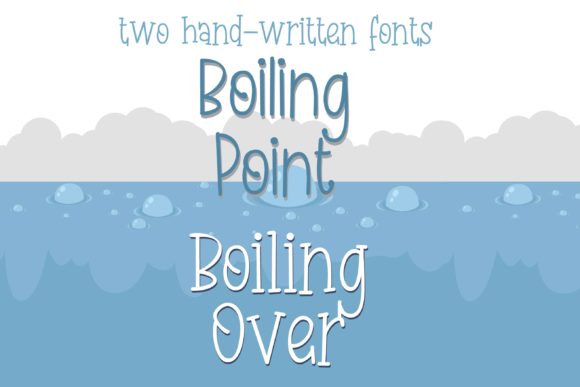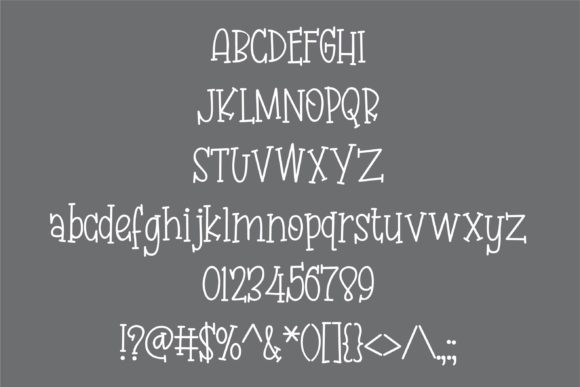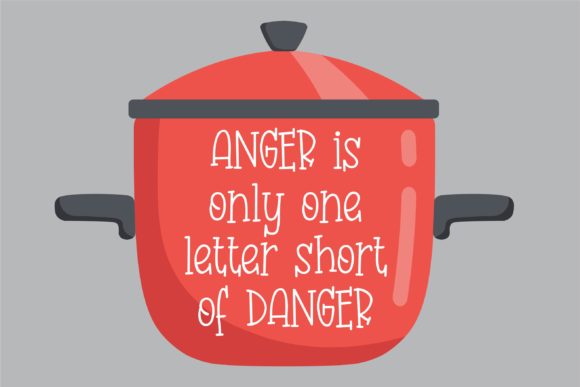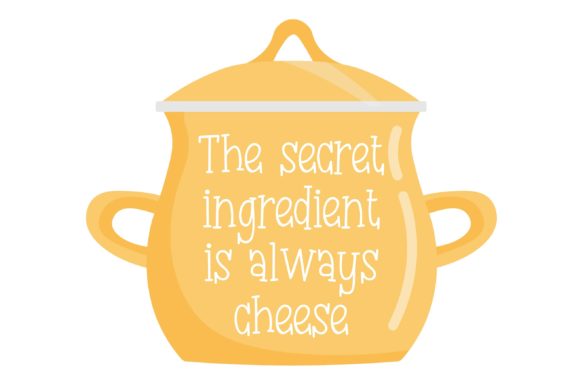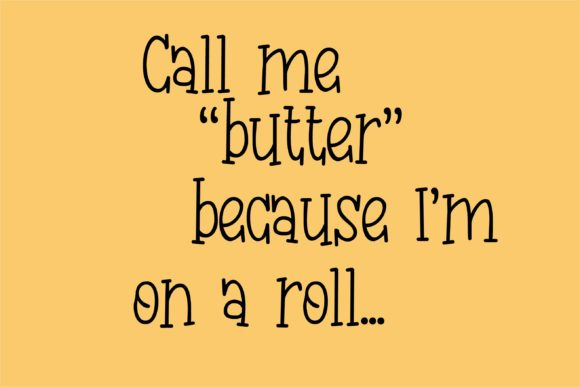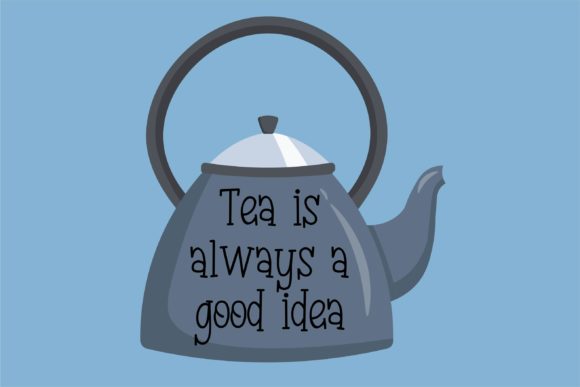
Unleash Your Creativity with Boiling Duo Font
Have you ever stared at a blank design project, struggling to find the perfect font to bring your vision to life? I know I have. That’s why I’m always on the lookout for unique and playful fonts that can add a touch of magic to any design. And that’s exactly what I found in the Boiling Duo Font – a quirky combination of two scripts that will make your designs stand out from the crowd.
As a designer, you know how crucial the right font can be in setting the tone and mood of your project. That’s why I’m excited to share with you the Boiling Duo Font, a dynamic duo that’s sure to elevate your designs. With its whimsical feel and versatility, this font is a valuable addition to any designer’s toolkit.
Key Features of Boiling Duo Font
- Unique Characteristics: Boiling Duo Font features a unique, hand-drawn design with a mix of bold and delicate lines, creating a dynamic visual effect.
- Multi-Lingual Support: The font includes support for multiple languages, including Latin, Cyrillic, and Greek alphabets.
- Scalability: Boiling Duo Font is designed to be highly scalable, making it suitable for use in a wide range of applications, from small text to large headings.
- Customizable: The font allows for advanced OpenType features, such as ligatures, swashes, and alternate characters, enabling designers to add a personal touch to their work.
Boiling Duo Font Review
The Boiling Duo Font has an interesting and unique aesthetic. ✨ I appreciate how it combines two different font styles in one design, creating a dynamic and visually appealing effect. The contrast between the two fonts adds a layer of depth and visual interest to any text.
Here are some specific features that I think work well:
- ✨ Unique aesthetic: The Boiling Duo Font is unlike any other font I’ve seen, making it a great choice for designers who want to stand out.
- ✨ Versatility: This font can be used in a variety of contexts, from logos and branding to body text and titles.
- ✨ Customization options: The font comes in multiple styles and weights, allowing designers to customize the look to fit their needs.
However, I do have a few concerns:
- ⚠️ Limited legibility: In some cases, the combination of two fonts can make the text difficult to read, especially at smaller font sizes.
Overall, I think the Boiling Duo Font has a lot of potential, but it’s not without its limitations. With careful use and customization, it can be a great addition to any design project.
Boiling Duo Font is ideal for:
- Editorials and articles
Remember to experiment with different font sizes, colors, and styles to get the most out of Boiling Duo Font.